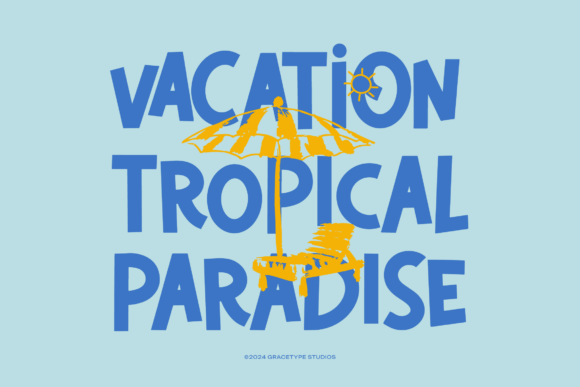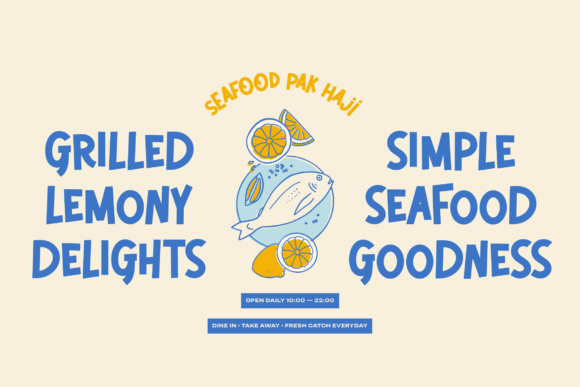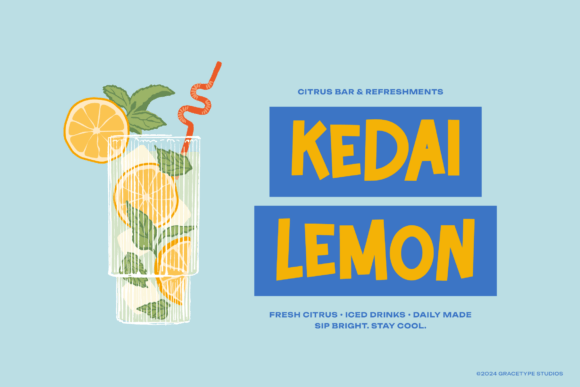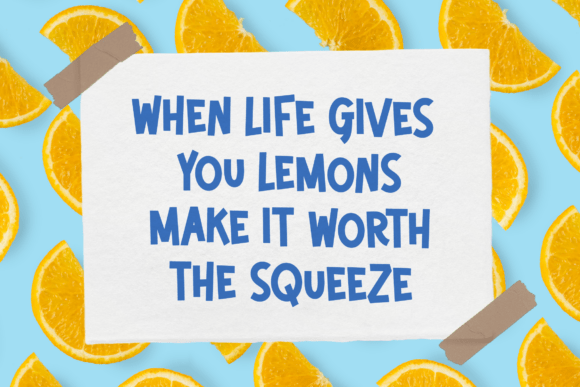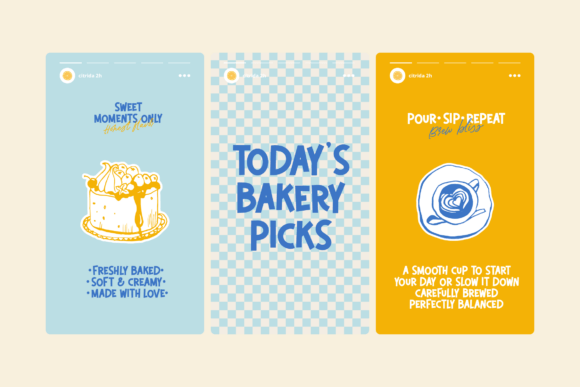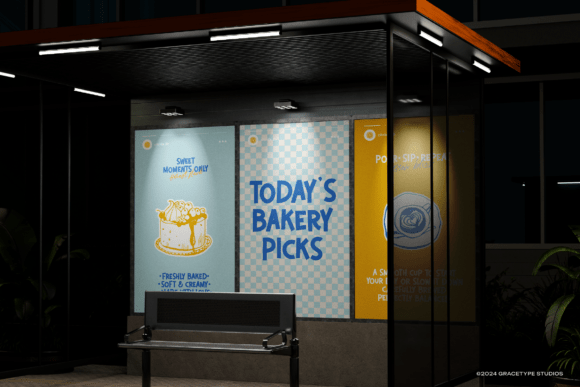
Unleash Your Creativity with Citrida Font: The Ultimate Display Typeface
Are you tired of using the same old fonts in your designs? Do you want to add a burst of energy and freshness to your projects? Look no further than Citrida Font, a vibrant and playful all-caps display typeface that’s sure to squeeze every drop of creativity out of your designs.
What is Citrida Font?
Citrida Font is a hand-drawn typeface that features organic, slightly irregular letterforms that capture the sunny energy of a summer morning. With its bold weight and charming, approachable silhouette, Citrida is the perfect choice for designers who want to add a touch of warmth and personality to their work.
The Inspiration Behind Citrida Font
Citrida Font is inspired by the bright and cheerful world of citrus fruits. The font’s creator wanted to capture the feeling of a refreshing glass of orange juice or a burst of citrus on a warm summer morning. The result is a font that’s as vibrant and energetic as a splash of citrus juice.
Key Features of Citrida Font
So, what makes Citrida Font so special? Here are just a few of its key features:
- All-caps display font: Citrida Font is designed to make a statement, with bold and eye-catching letterforms that are perfect for headlines and titles.
- Hand-drawn and organic: Citrida Font features slightly irregular letterforms that give it a charming, hand-drawn feel.
- Bold weight: Citrida Font is designed to be seen, with a bold weight that’s perfect for making a statement.
- Charming and approachable: Citrida Font has a warm and inviting personality that’s perfect for brands that want to connect with their audience.
Use Cases for Citrida Font
So, what can you use Citrida Font for? The possibilities are endless, but here are a few ideas to get you started:
- Juice bar branding: Citrida Font is a natural fit for juice bars and health food stores that want to convey a sense of freshness and vitality.
- Fresh produce packaging: Citrida Font is perfect for packaging design that wants to highlight the freshness and quality of produce.
- Children’s book titles: Citrida Font is a great choice for children’s book titles that want to convey a sense of fun and playfulness.
- Vibrant social media graphics: Citrida Font is perfect for social media graphics that want to stand out from the crowd and grab attention.
Benefits of Using Citrida Font
So, why should you choose Citrida Font for your next project? Here are just a few benefits of using this amazing typeface:
- Adds a human touch: Citrida Font brings a refreshingly human touch to every layout, making your message feel more approachable and relatable.
- Conveys energy and freshness: Citrida Font is designed to convey a sense of energy and freshness, making it perfect for brands that want to stand out from the crowd.
- Easy to read: Despite its bold weight, Citrida Font is easy to read and understand, making it perfect for use in a variety of contexts.
In conclusion, Citrida Font is a vibrant and playful all-caps display typeface that’s perfect for designers who want to add a burst of energy and freshness to their work. With its bold weight, charming silhouette, and hand-drawn feel, Citrida Font is the premier choice for juice bar branding, fresh produce packaging, children’s book titles, and vibrant social media graphics. So why wait? Squeeze every drop of creativity out of your designs with Citrida Font today!